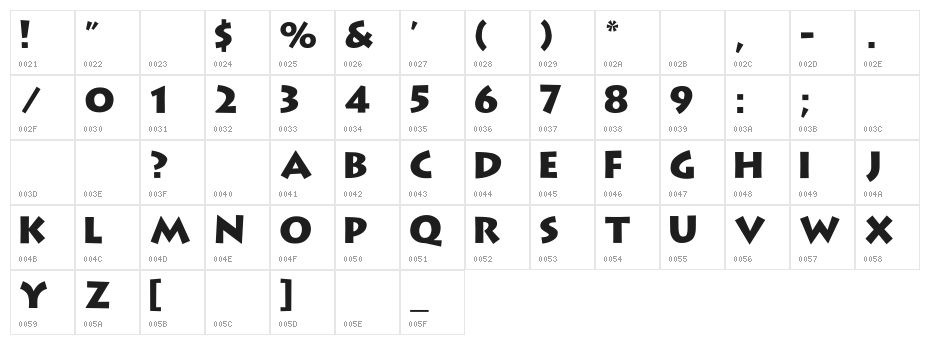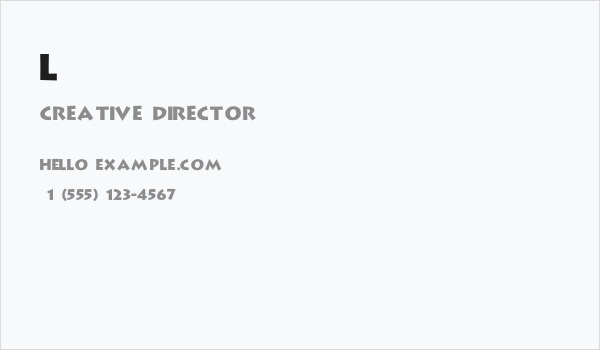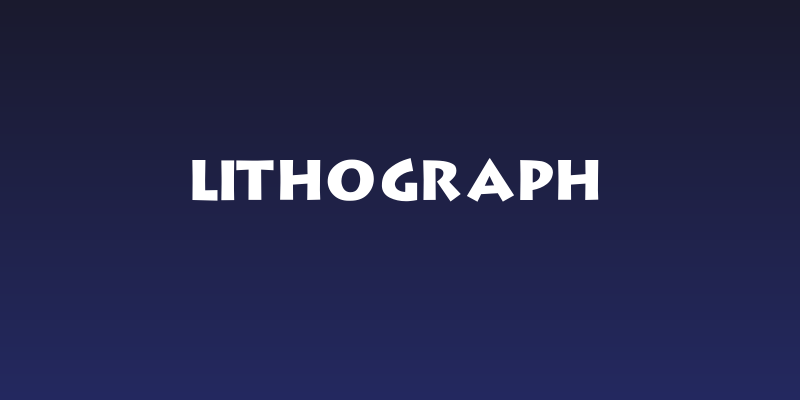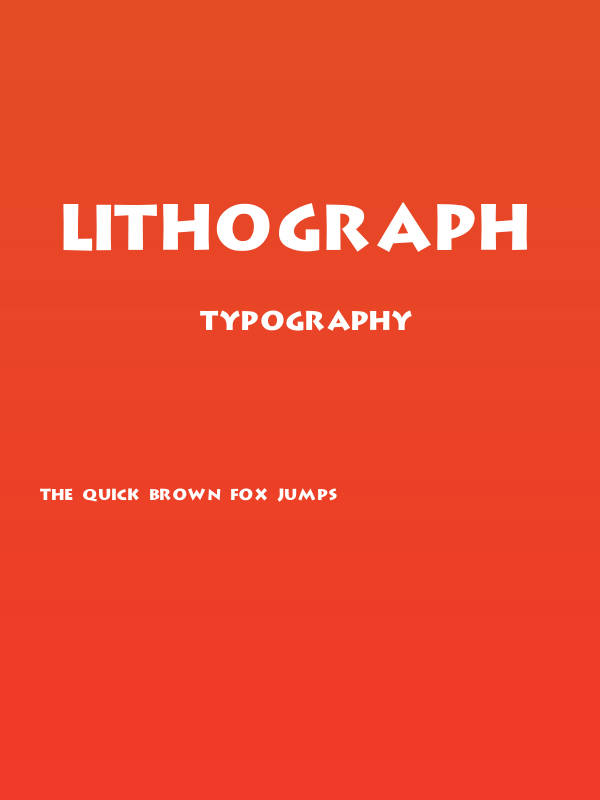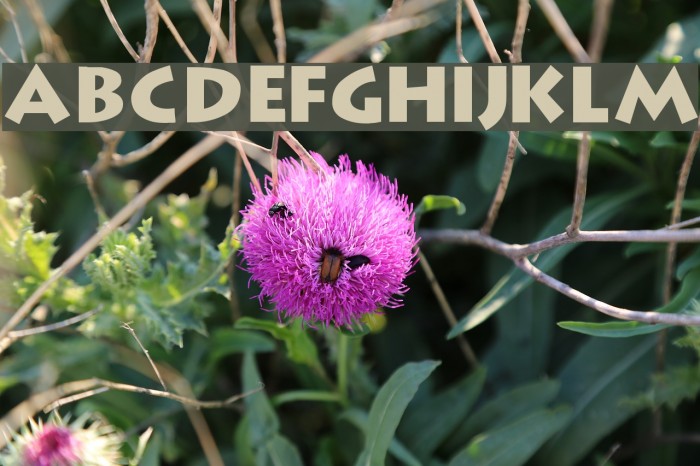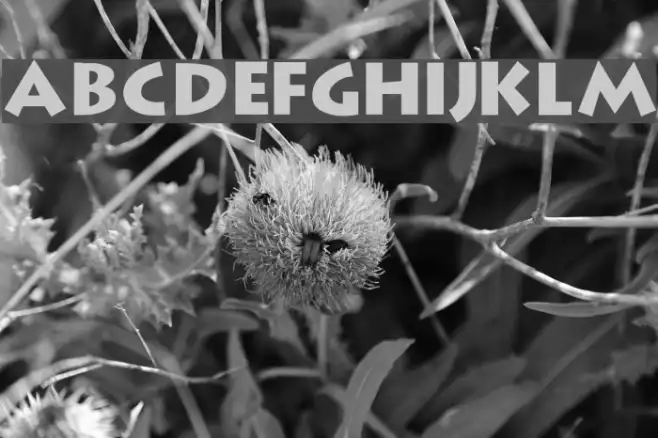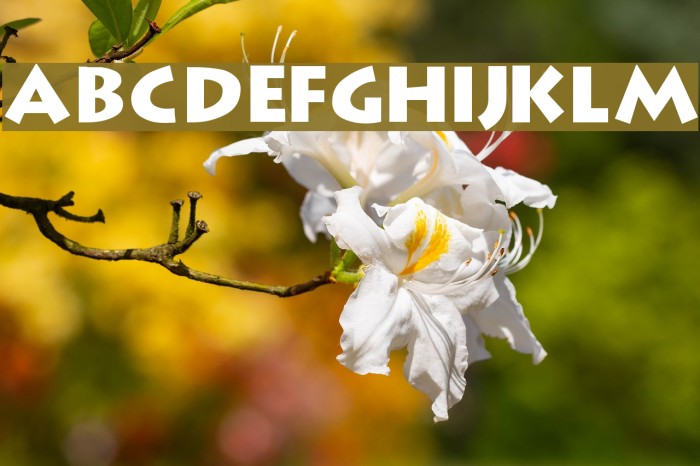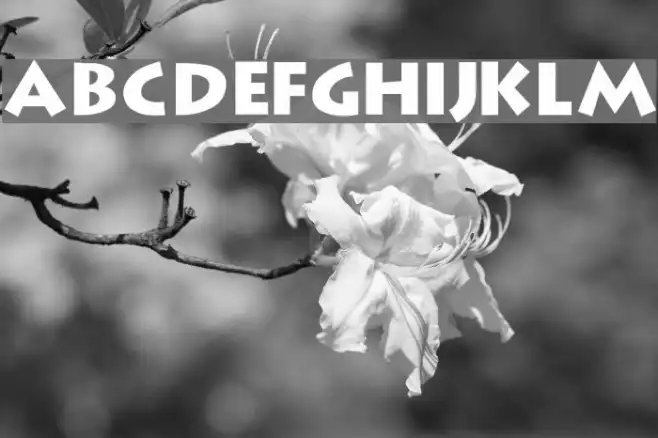
Lithograph Font
Lithograph Description
This font features bold, geometric letterforms with a strong presence. The uppercase letters are characterized by sharp angles and a uniform stroke width, giving them a modern and assertive appearance. The numerals are equally bold, maintaining the geometric style with consistent stroke thickness. Special characters are designed to match the overall aesthetic, ensuring a cohesive look across all glyphs. The font's boldness and geometric style make it suitable for impactful designs.